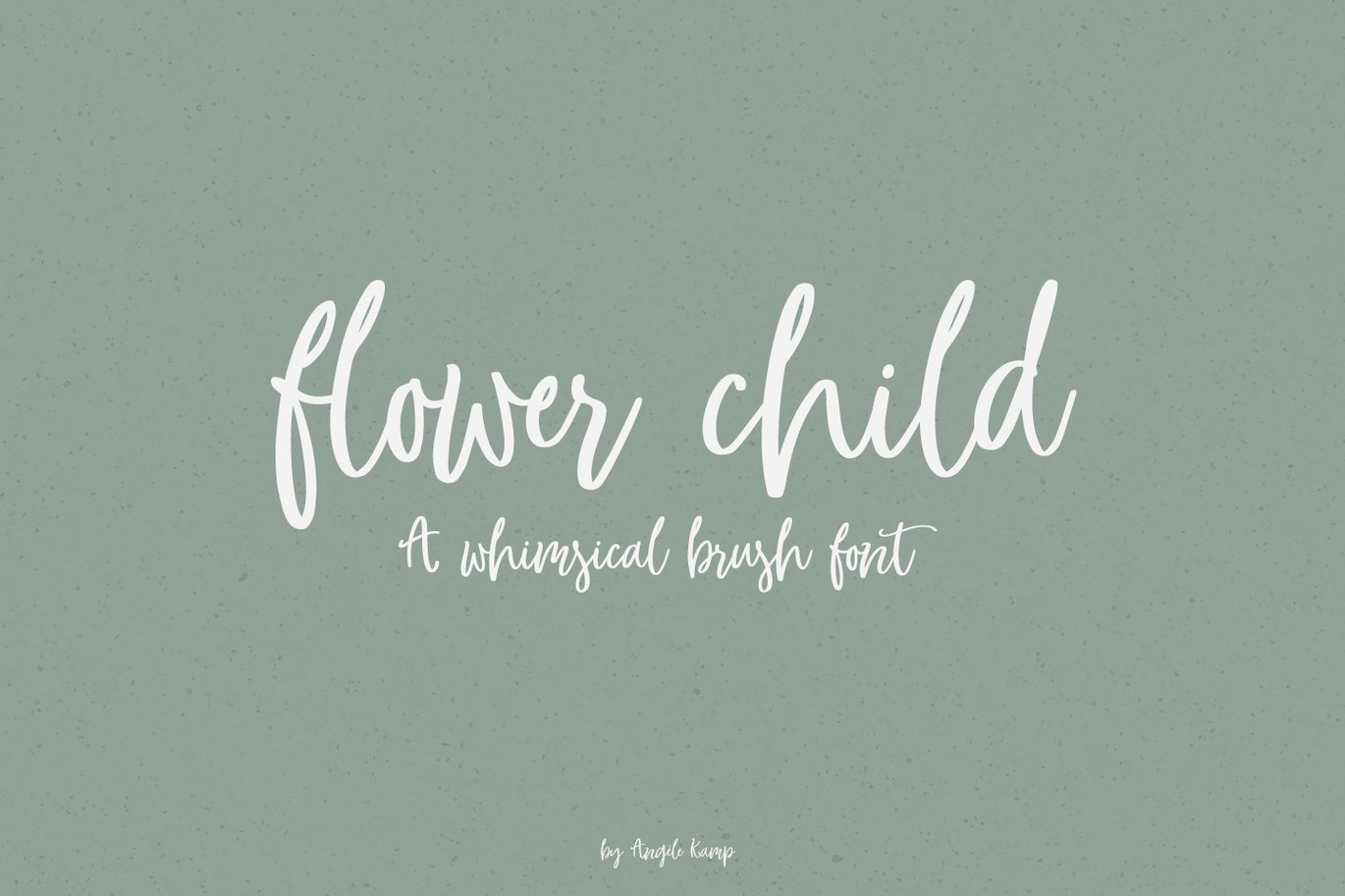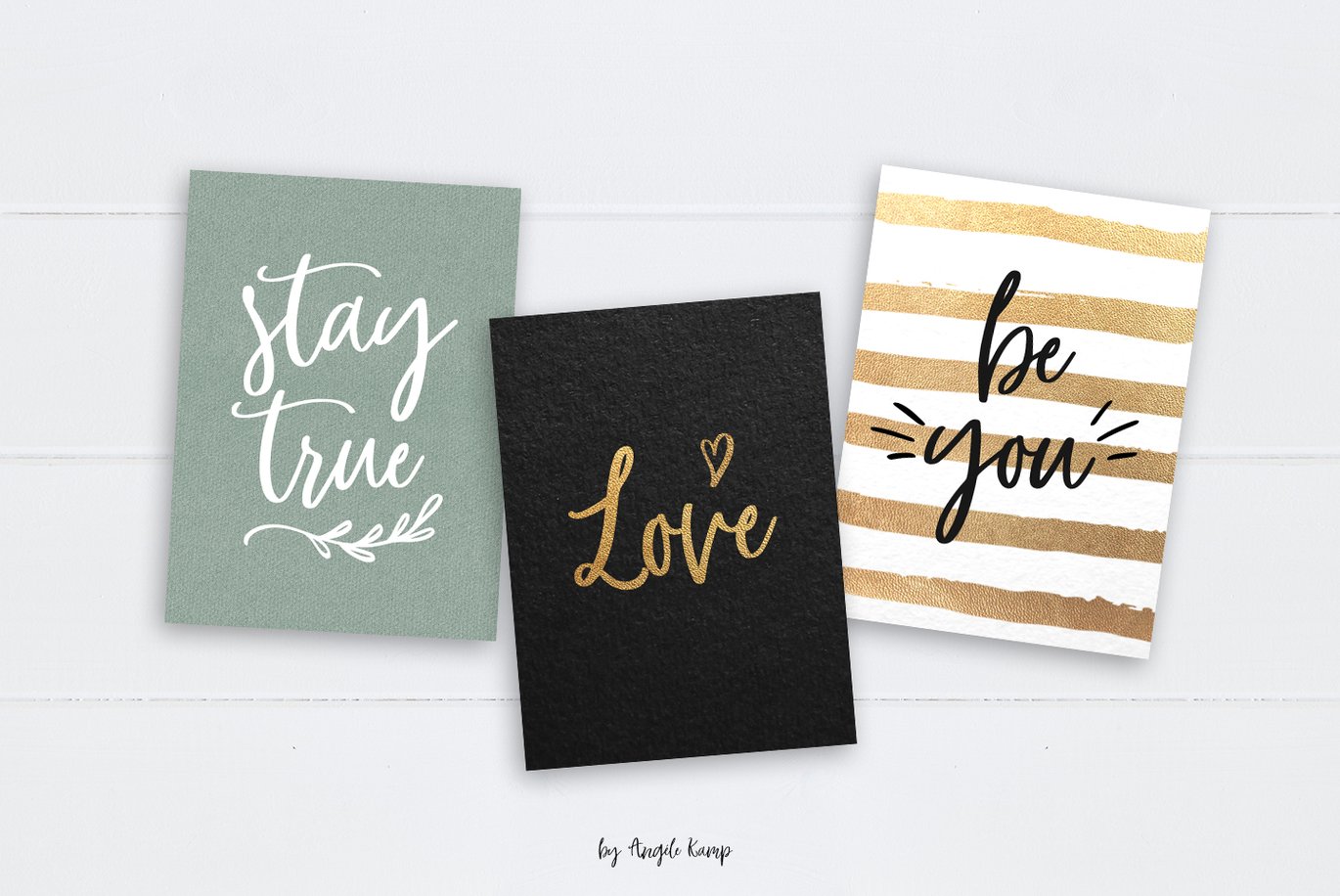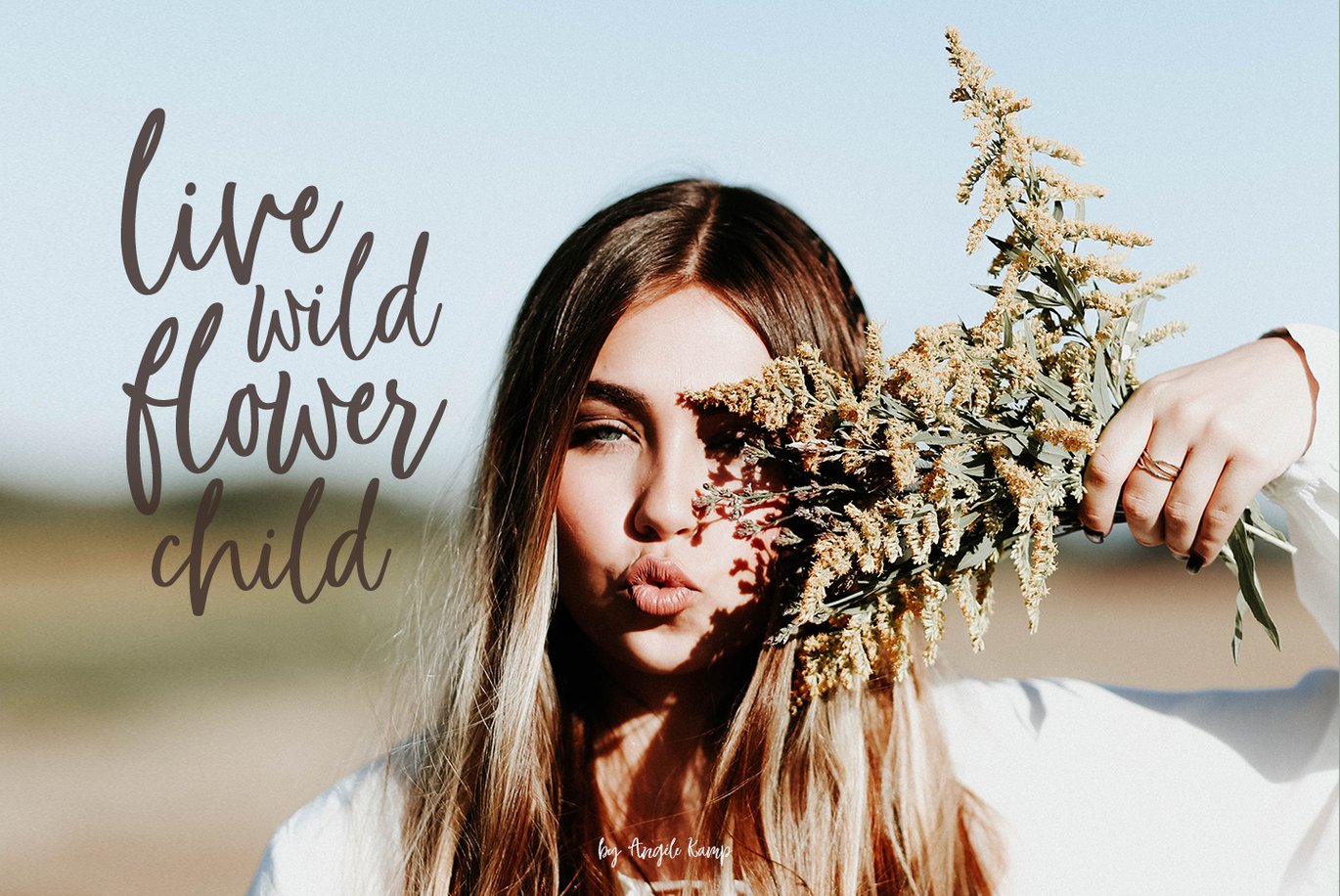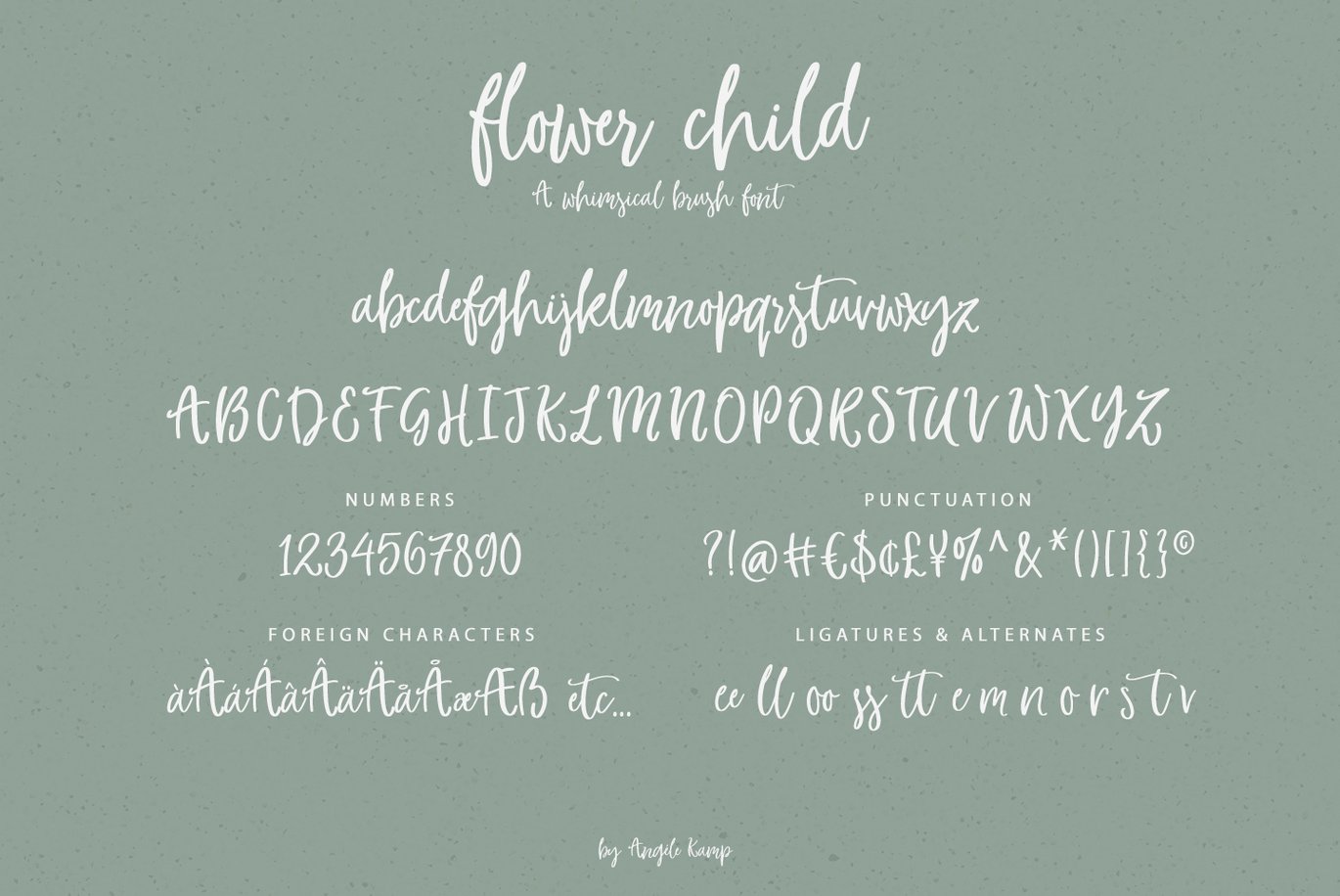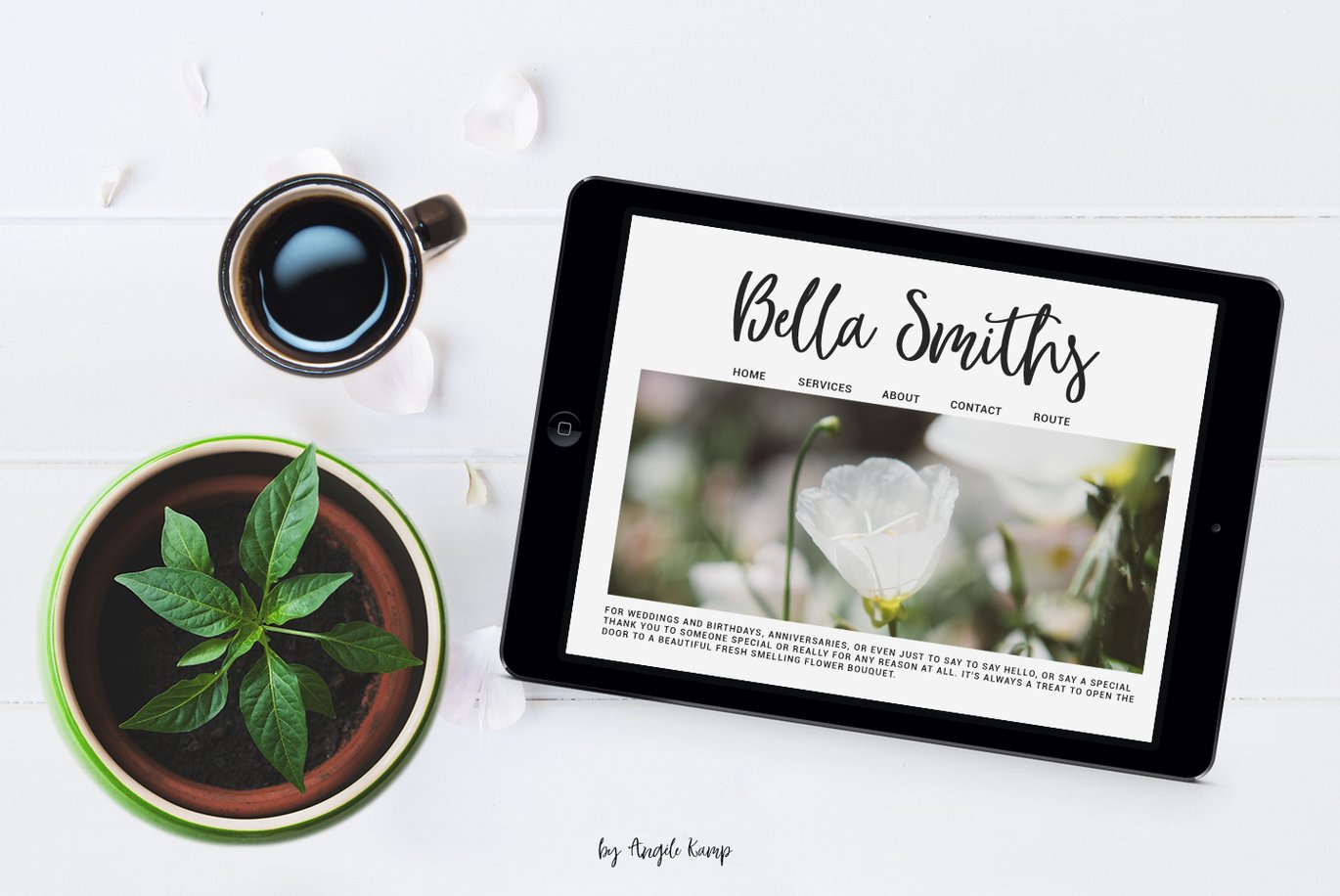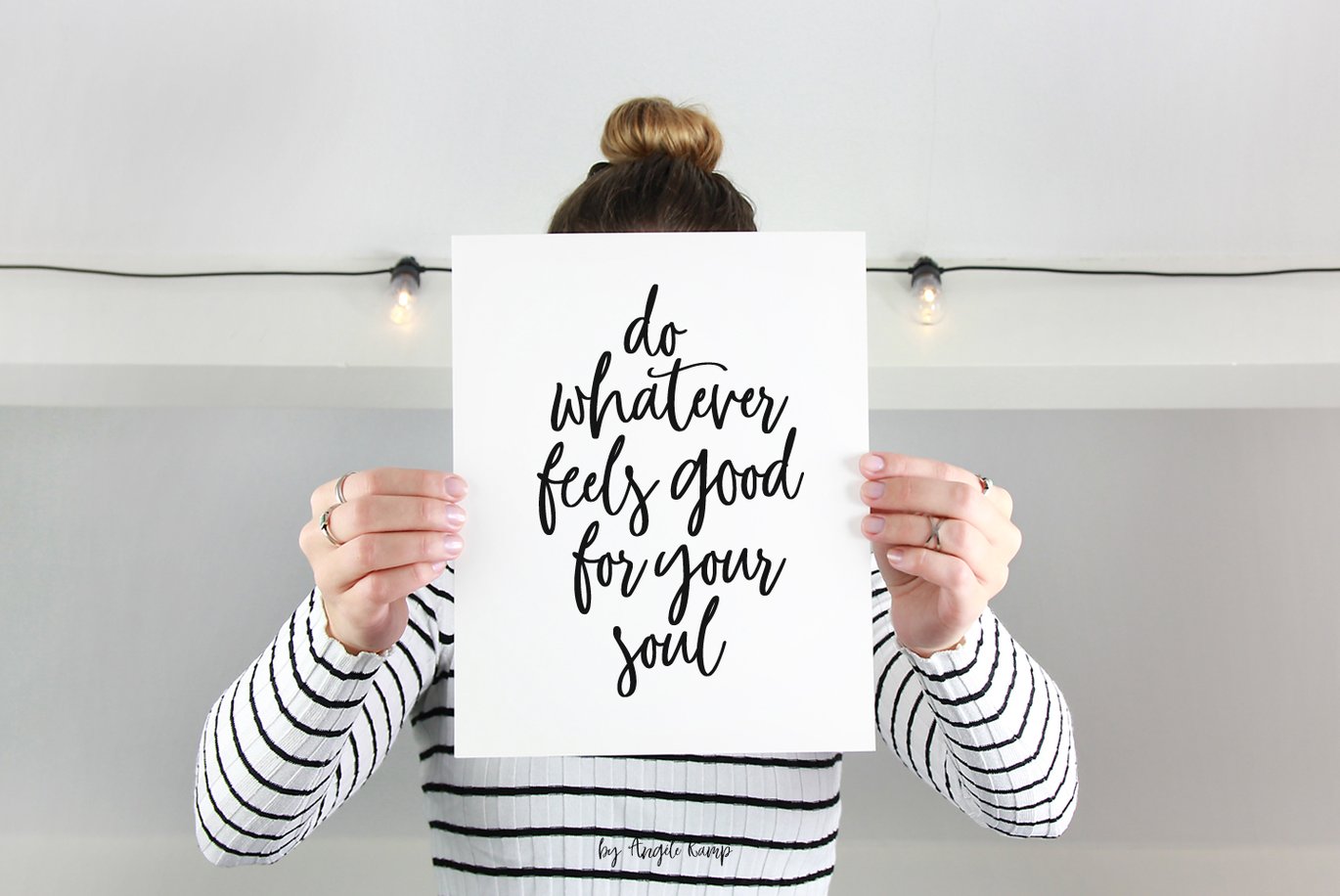
Whimsical brush font, Flower Child
Flower Child is a whimsical, carefree, brush font with a bouncing baseline. This playful font will give your designs that fresh, handwritten feel to it and will look lovely on cards, headers, quotes and all your other lovely projects.
Flower Child has nice smooth lines which makes it perfect for crafters and cutting machines.